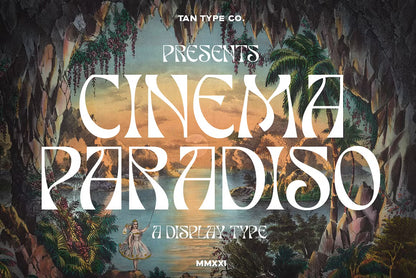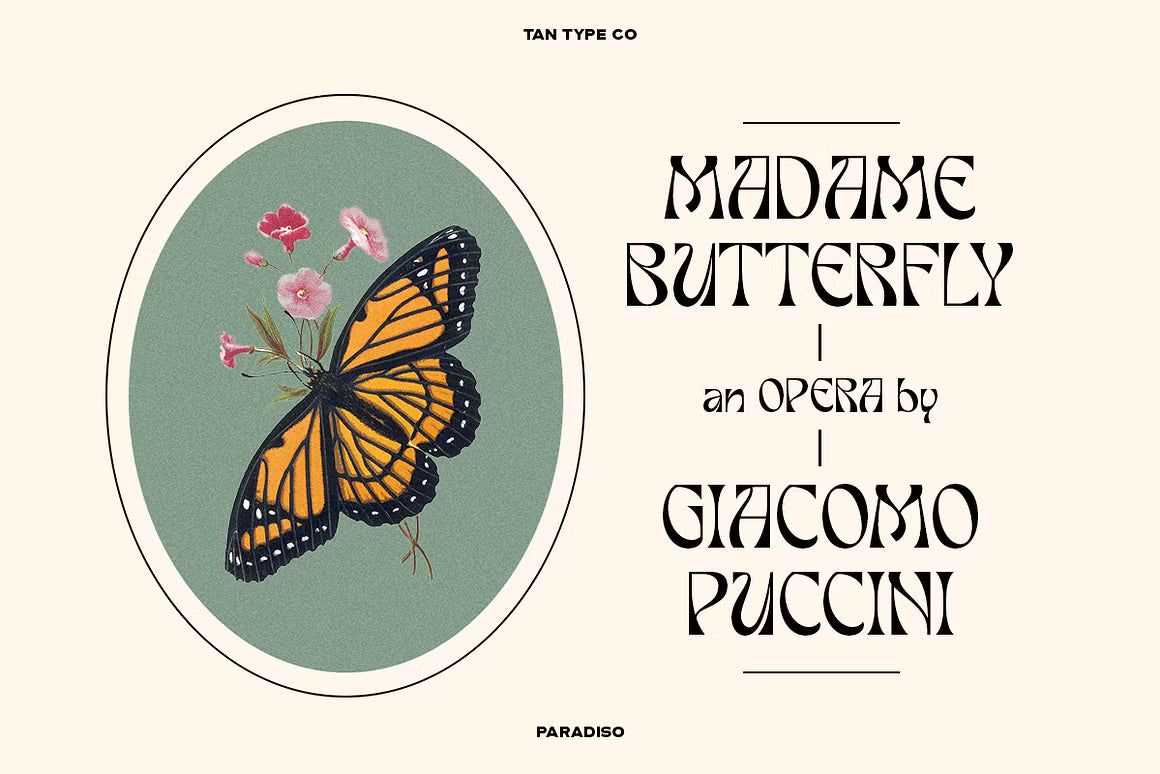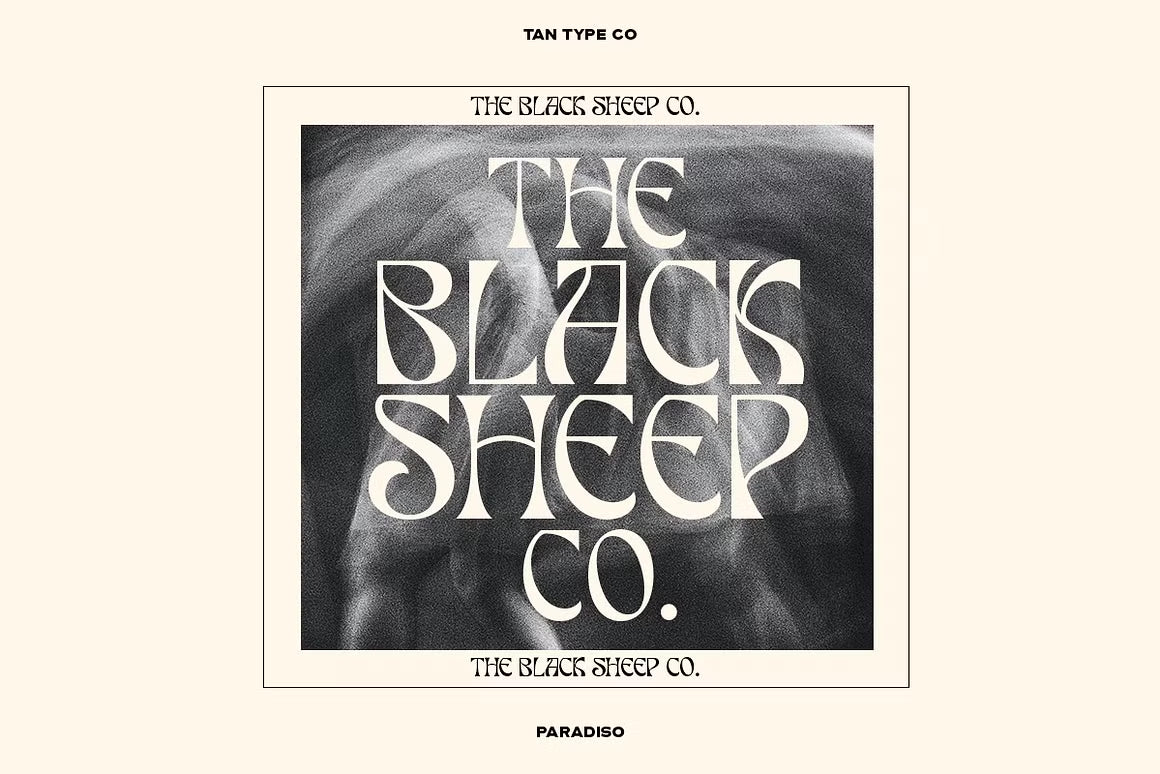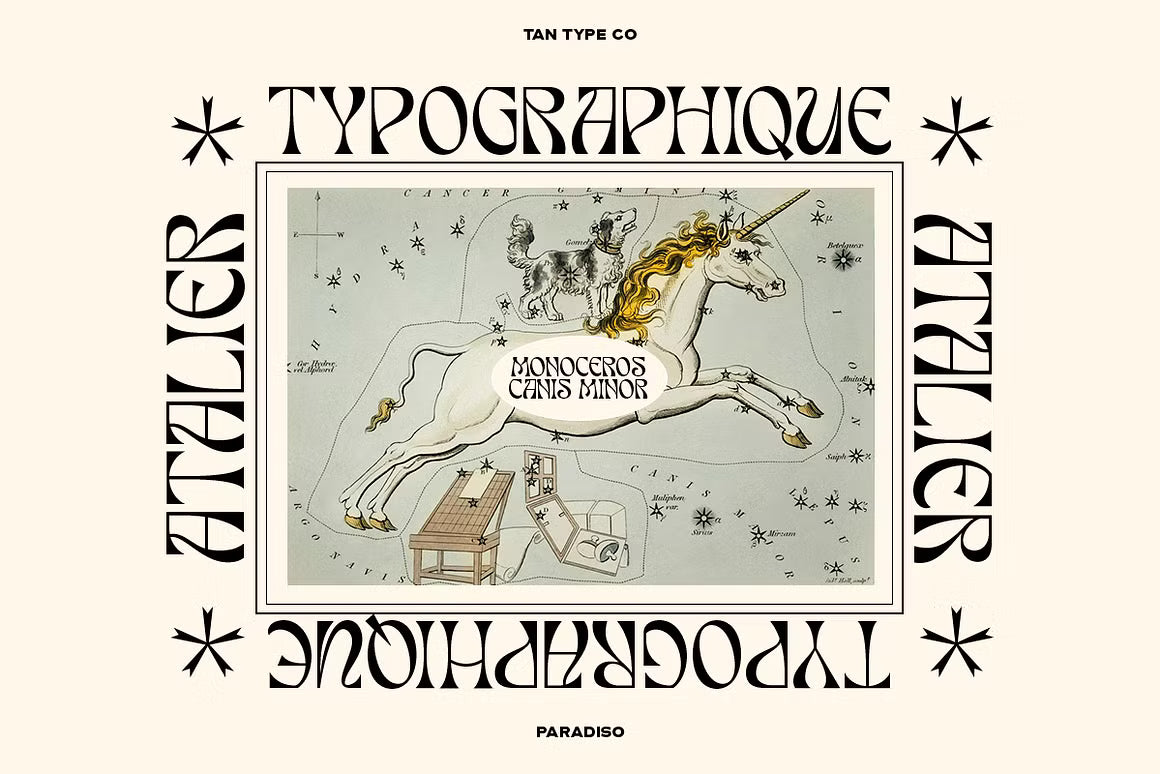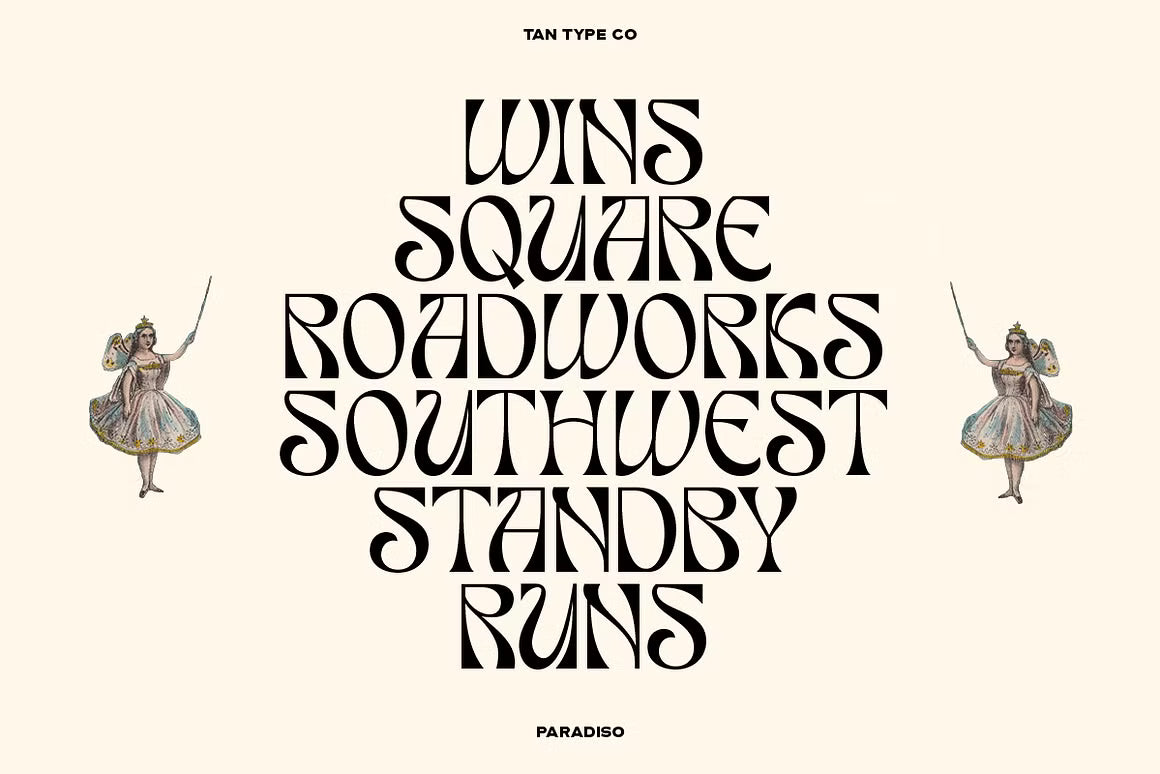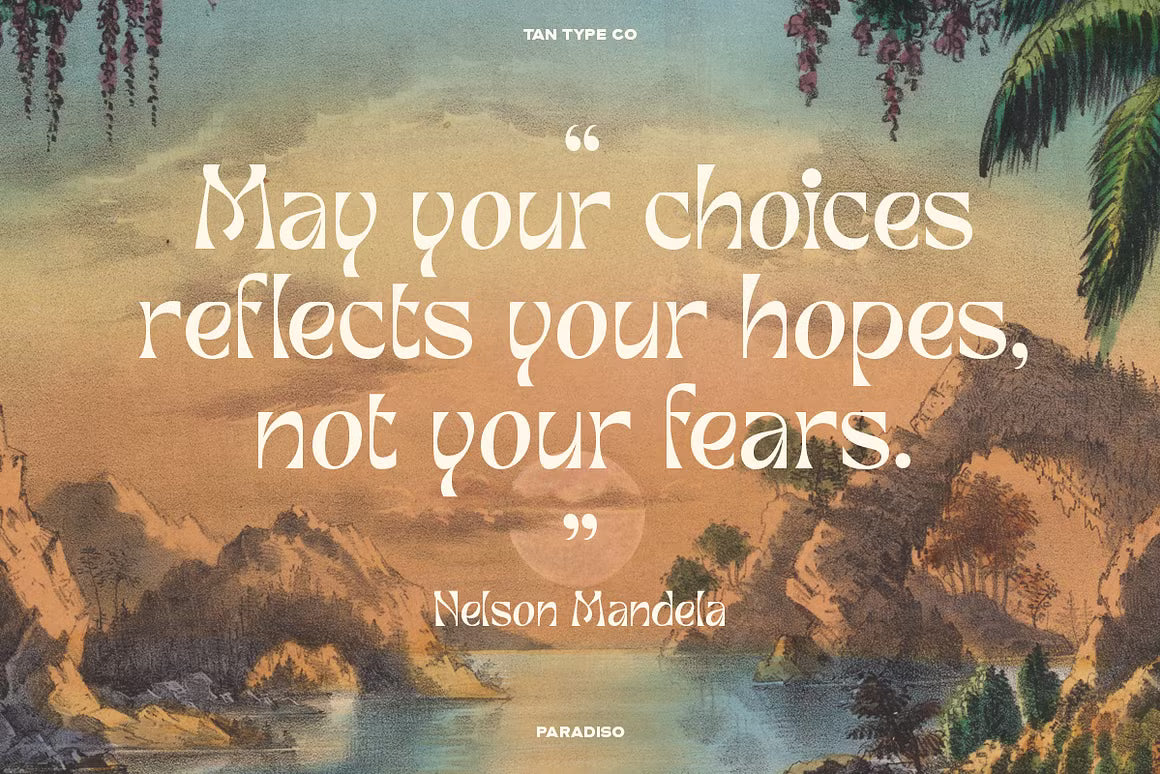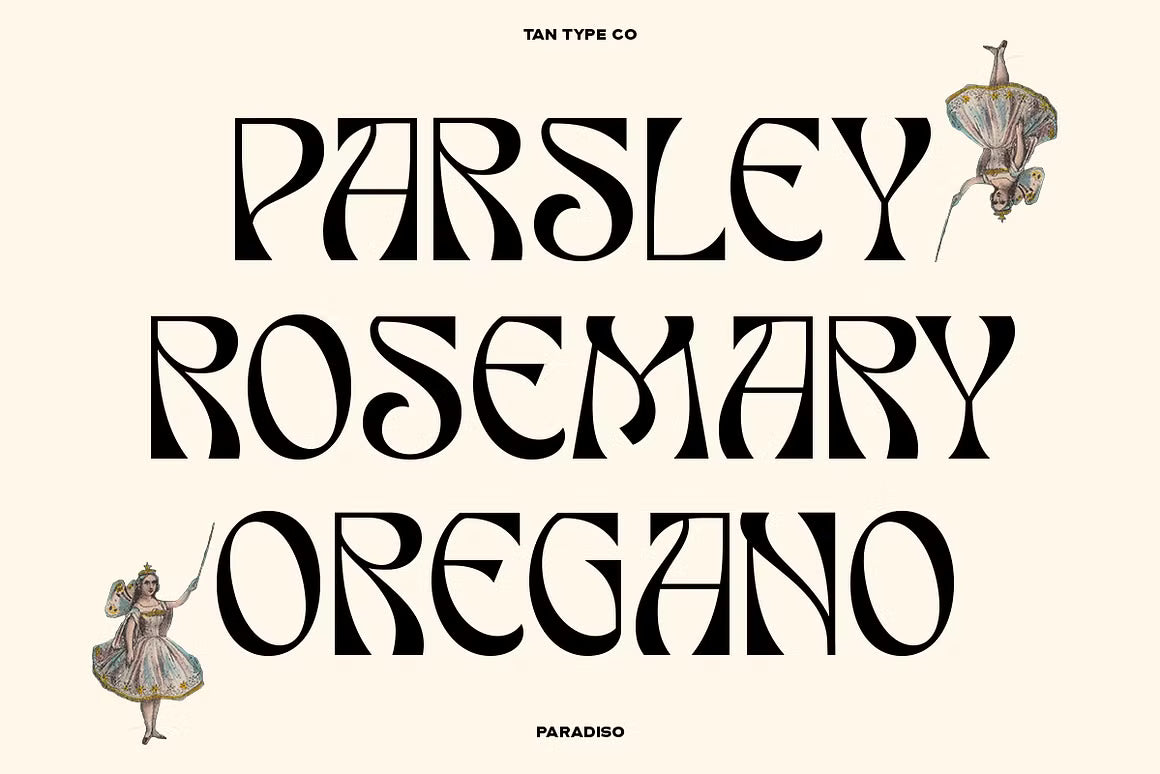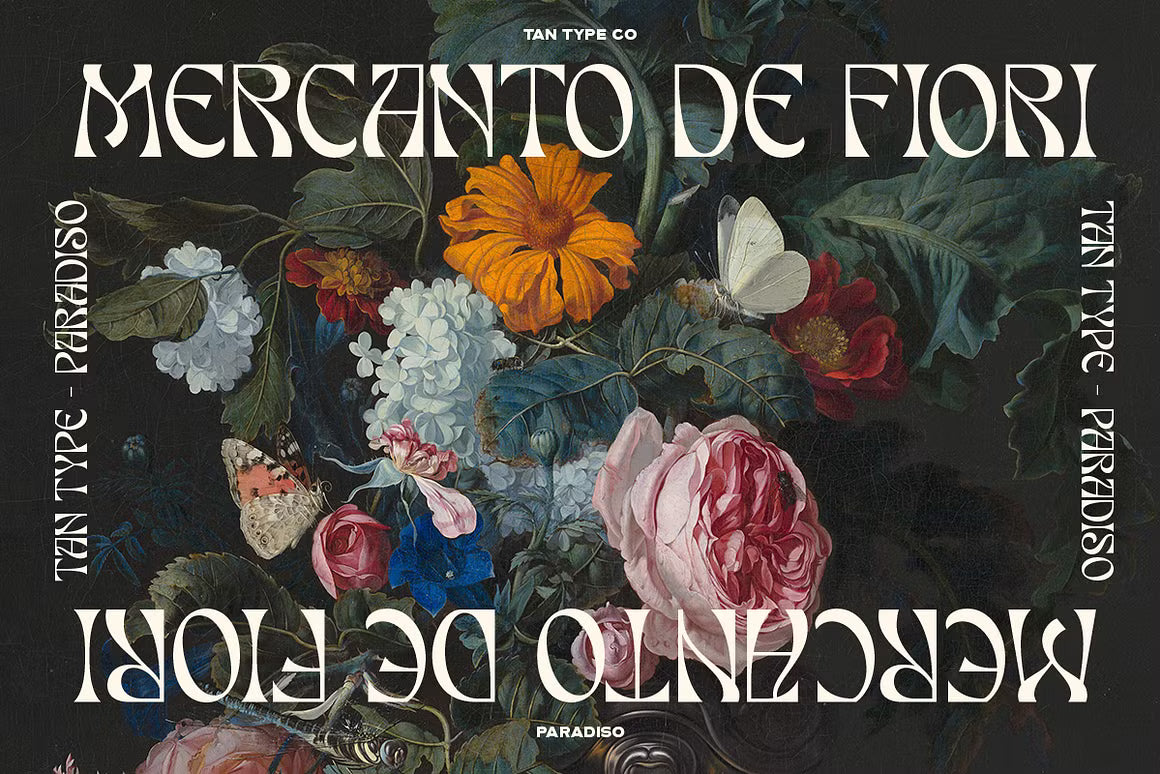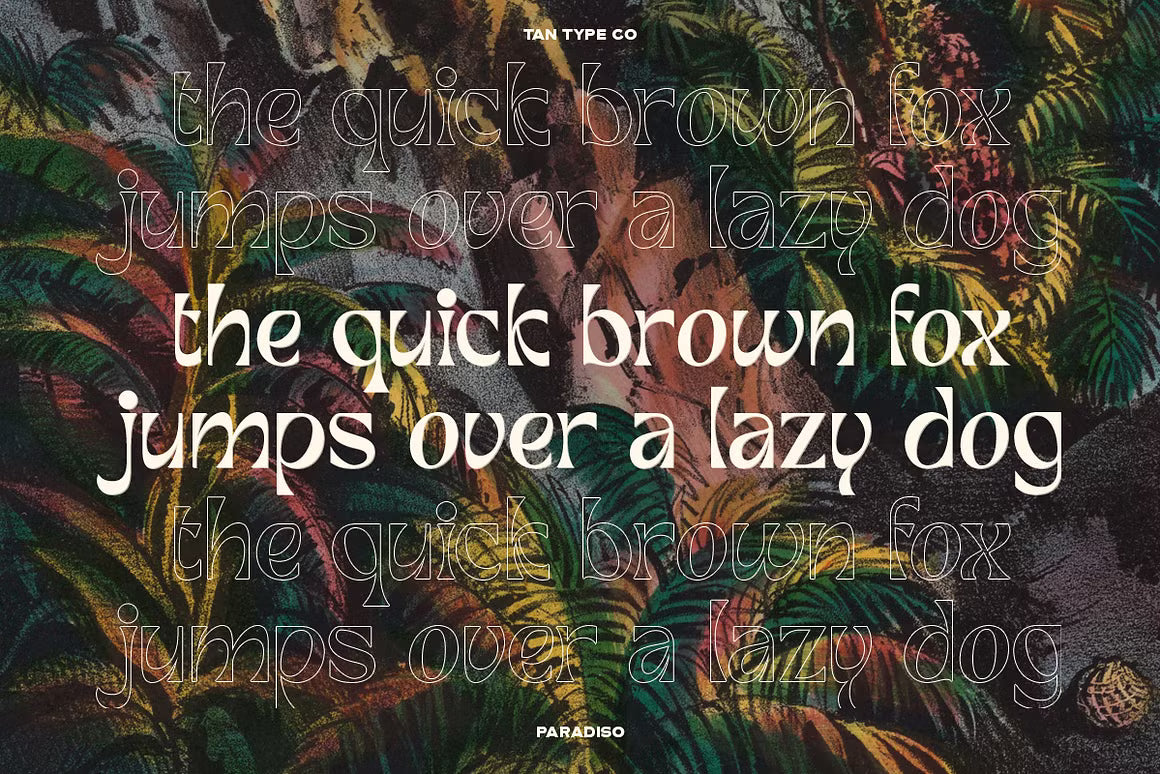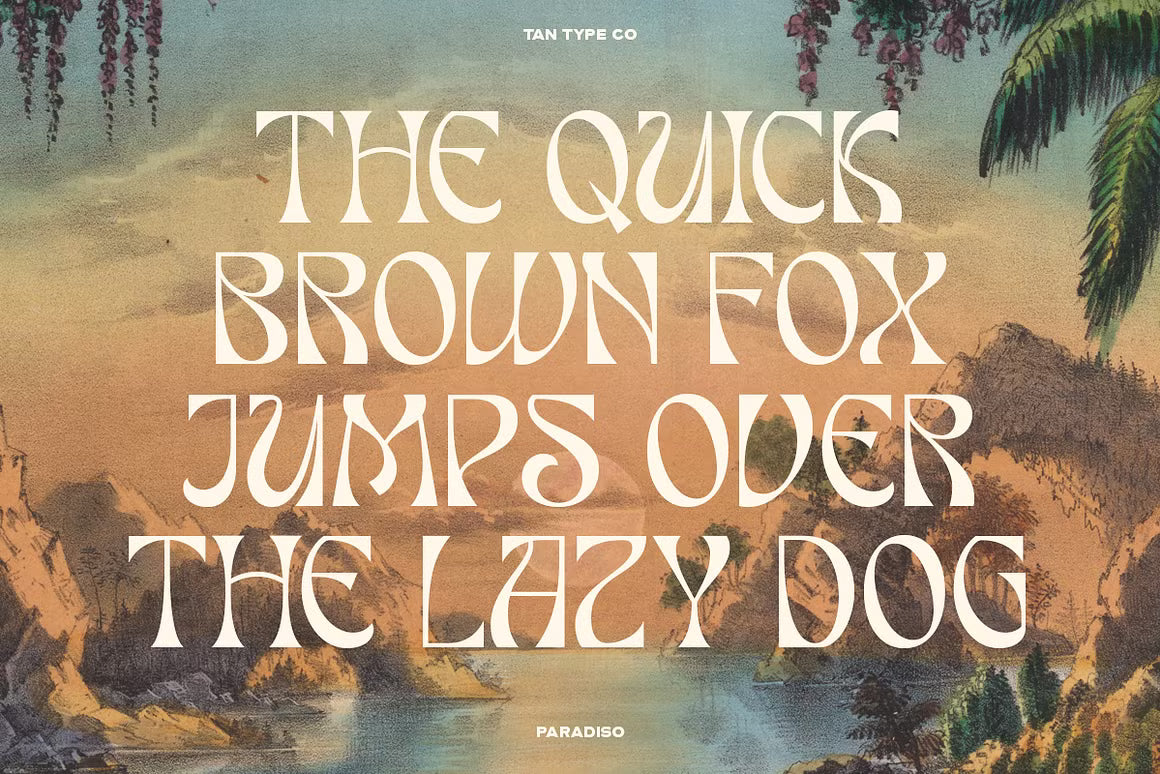
Cinema Paradiso is a theatrical serif display typeface brimming with drama and charm. With high-contrast strokes, graceful curves, and uniquely artistic letterforms, this font evokes the romance of vintage cinema and classical posters. Perfect for editorial headlines, movie titles, fashion branding, and luxury packaging, Cinema Paradiso brings a sense of storytelling and elegance to every letter.